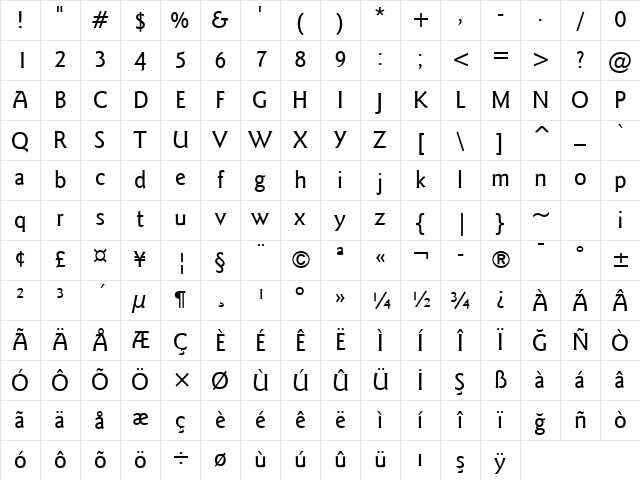
GoudySans Md BT Medium
GoudySans Md BT Family
GoudySans Md BT Medium
Design Context for GoudySans Md BT
GoudySans Md BT is a composed and adaptable typeface that performs quietly and consistently across a wide range of design contexts.